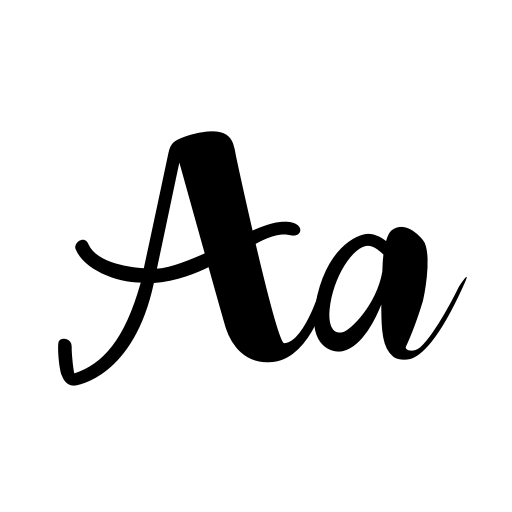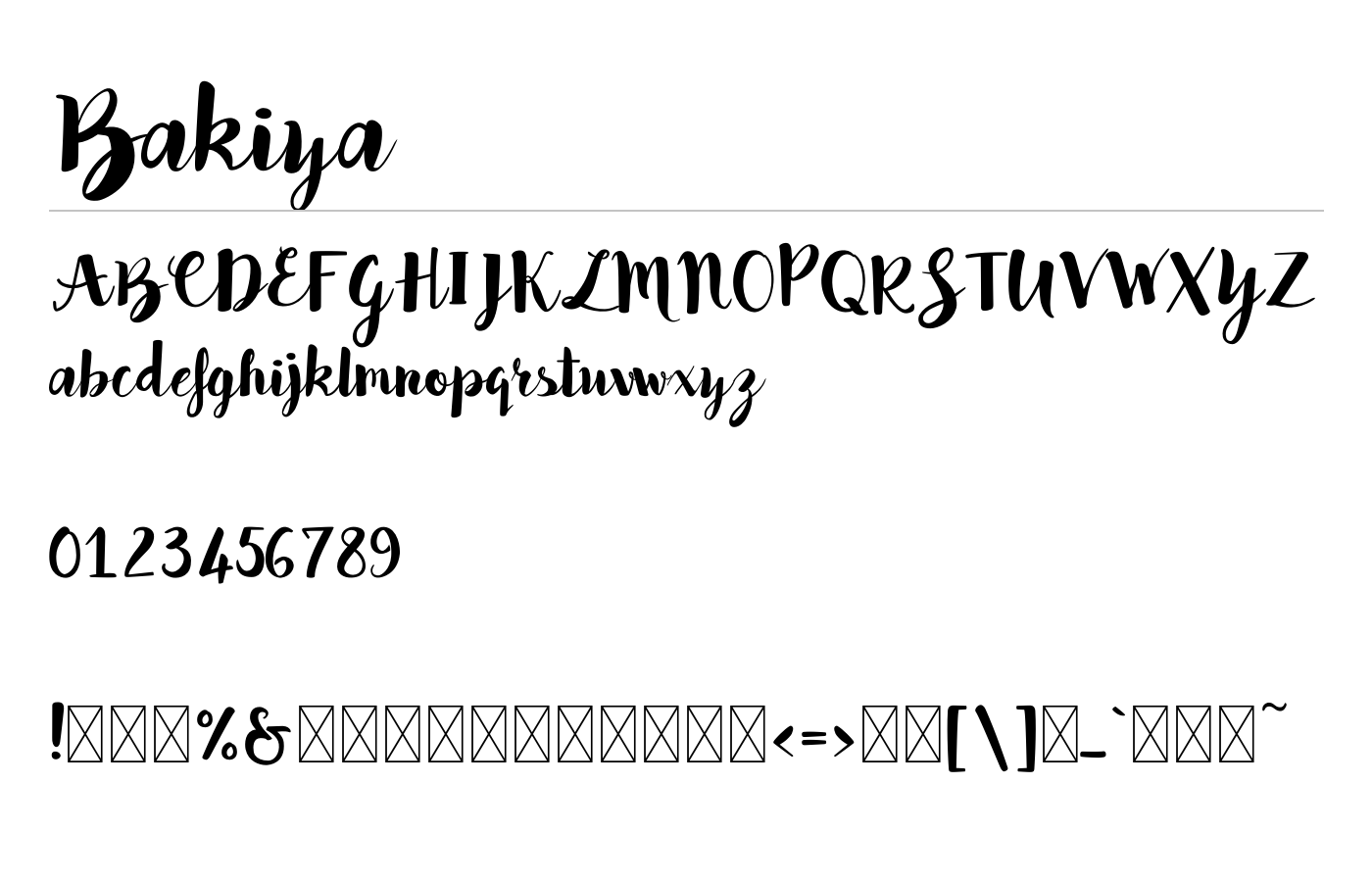
Bakiya is a lively script font with a bold, brush-like texture that combines playful charm with elegant curves. Its dynamic strokes and varying thicknesses give it a handcrafted, artistic feel, making it perfect for branding, invitations, and creative headlines that seek a personal and expressive touch. This font works well in designs that want to balance warmth and personality with stylish flair.
Bakiya Font
About Bakiya Font